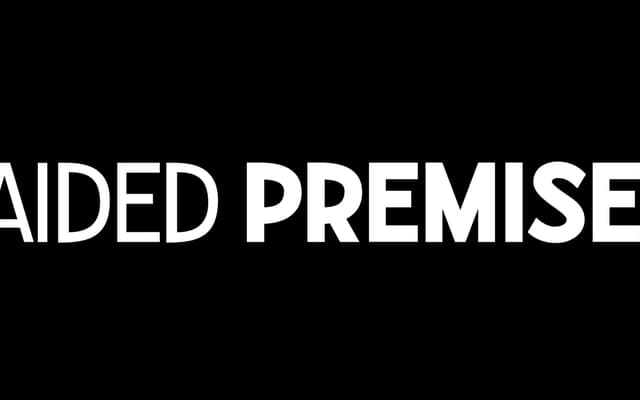
Raided Premises
A two-weight hand-rendered display face drawn from the police notice posted at The Stonewall Inn following the 1969 raid.
The letterforms are taken directly from a piece of historical signage: the notice police posted at The Stonewall Inn in 1969. Released in two weights, the family carries an explicit political and cultural context that gives it a specificity most display faces lack. Best suited to editorial, activist or commemorative work where the historical reference adds meaning rather than noise.
Hand-rendered lettering based on a specific historical signage source, placing it firmly in the display category as a decorative, contextually loaded typeface rather than a text face.